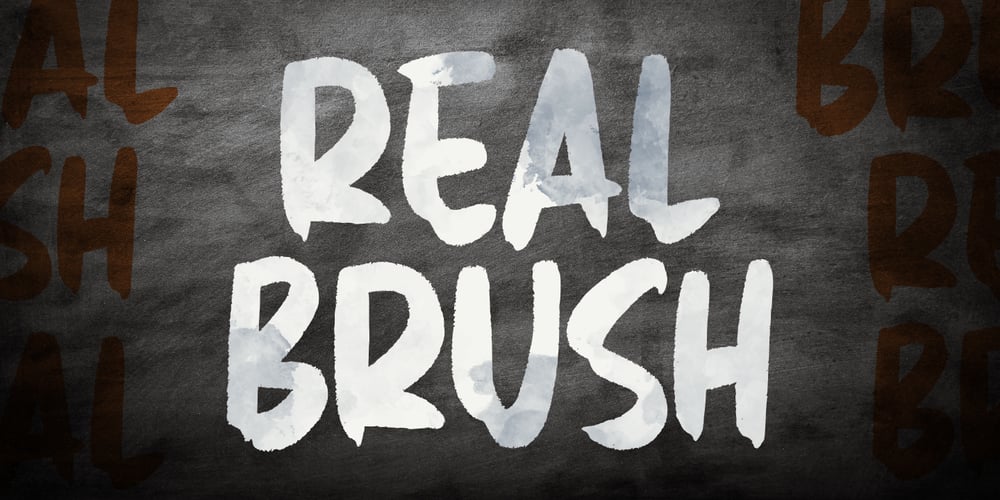
Real Brush Font Family was designed by Risman Ginarwan and published by Garisman Studio. Real Brush contains 1 styles and family package options. Real Brush hand-brush font combines attractive curves with a fresh urban edge; delivering a stylish script which is guaranteed to add an eye-catching appeal to your logo designs, brand imagery, handwritten quotes, product packaging, merchandise and social media posts. – Simple installation – Works for PC and MAC – Multilingual Support (available for 23 Language) – Detailed dry brush – Support for Adobe Illustrator, Photoshop, Corel Draw, or Procreate (New Updated)